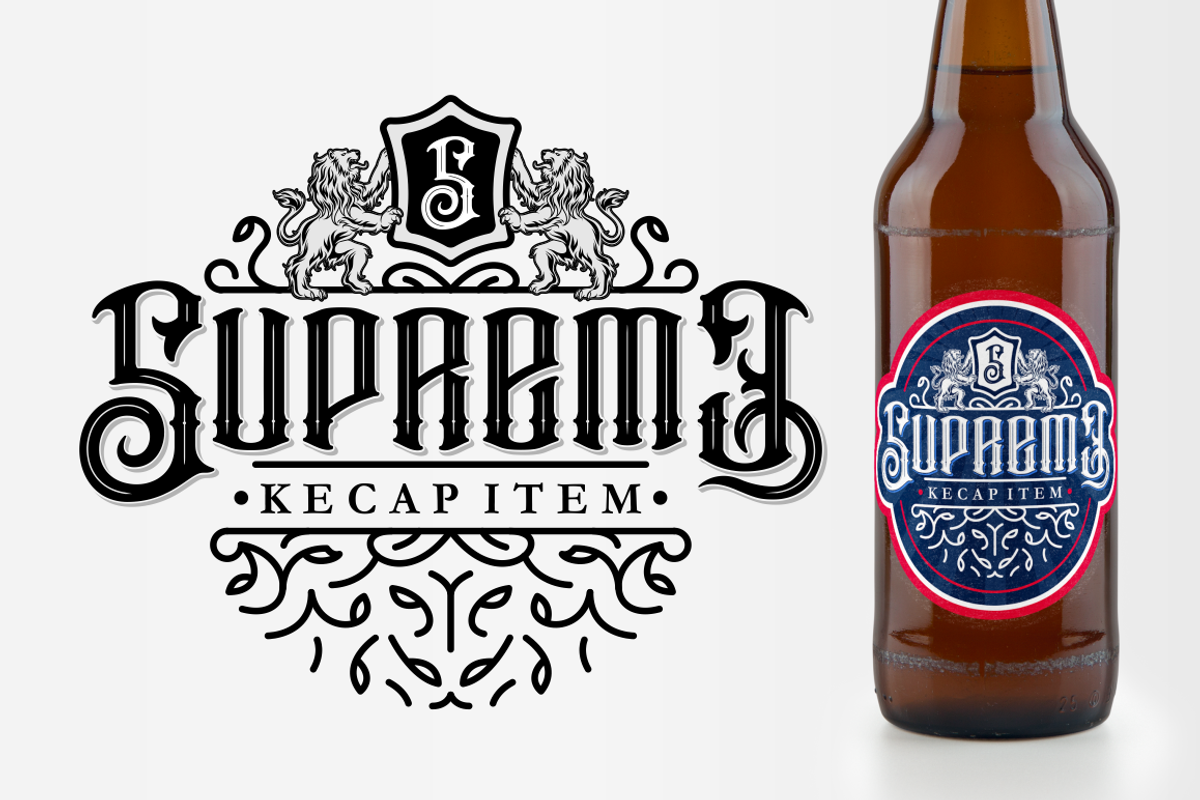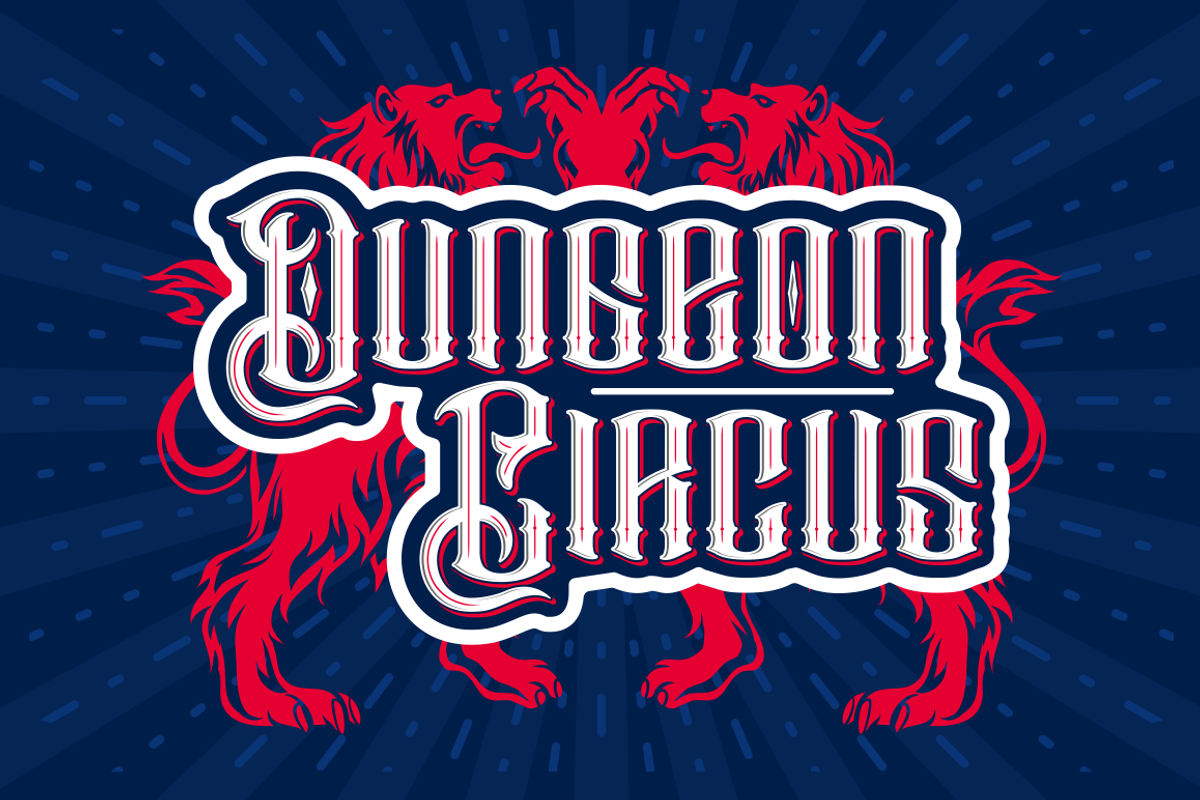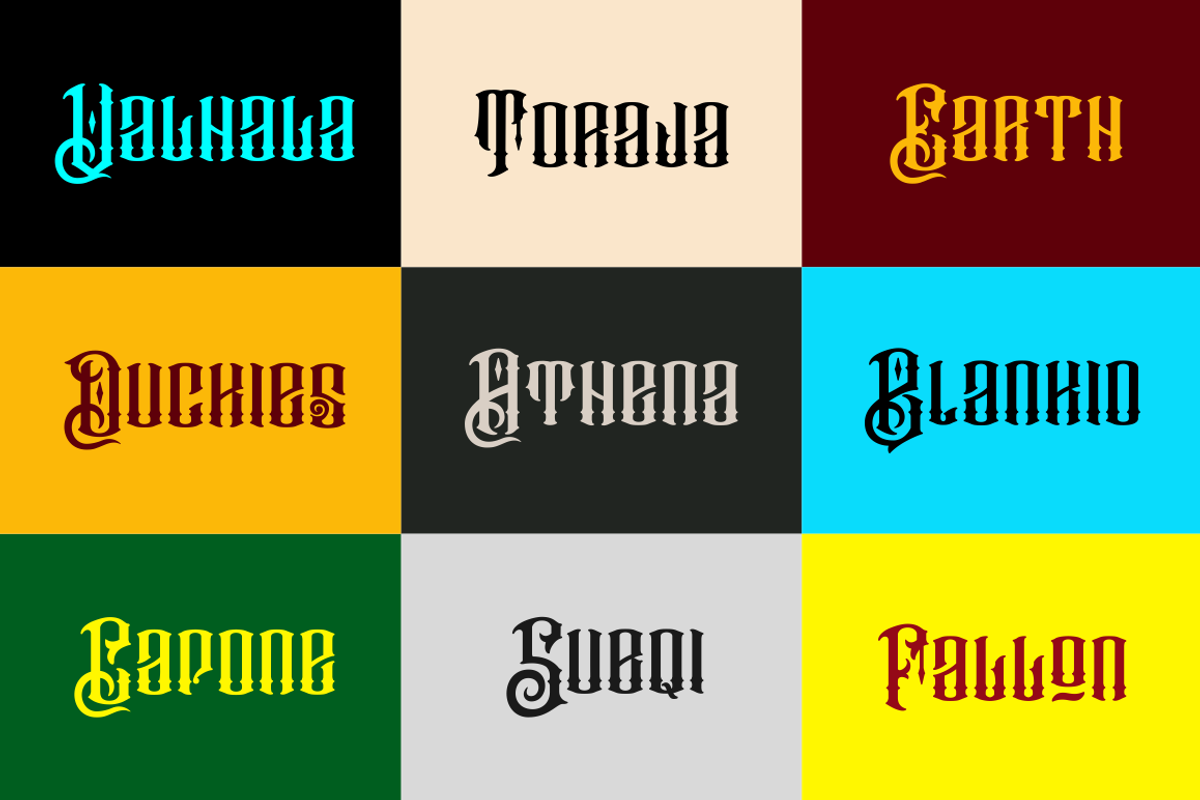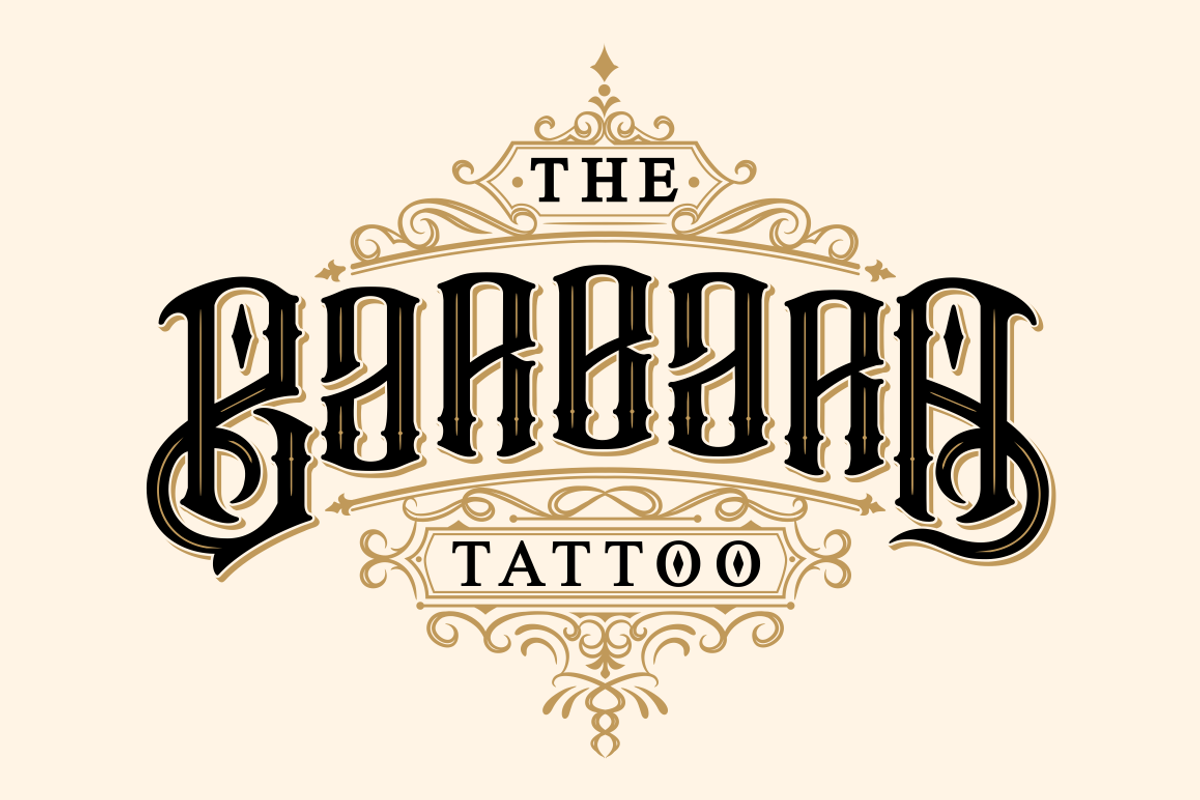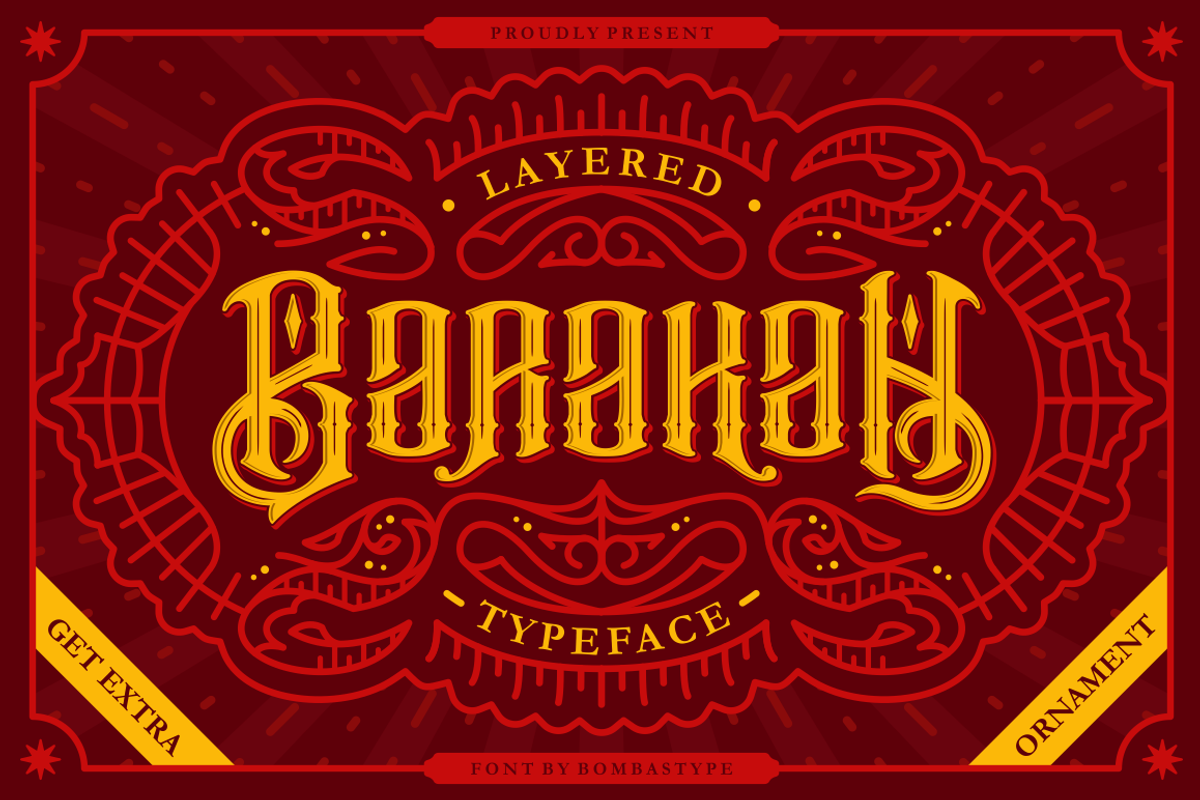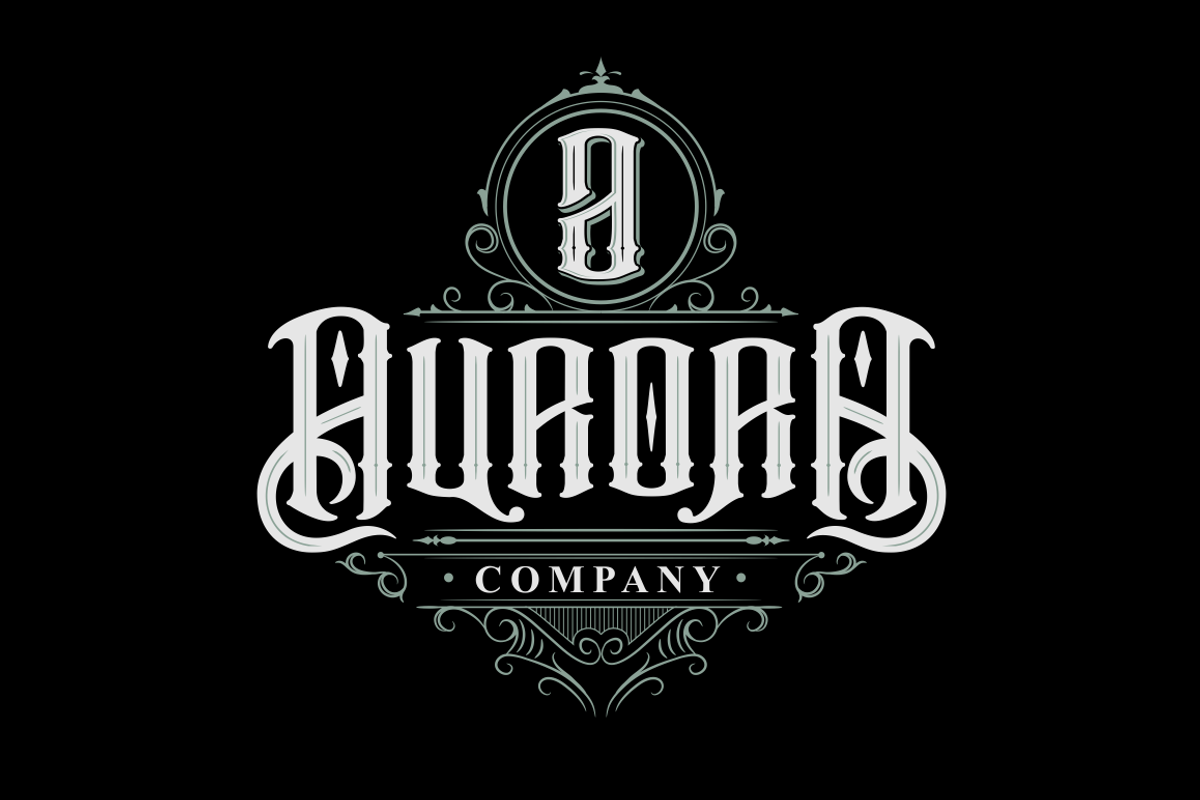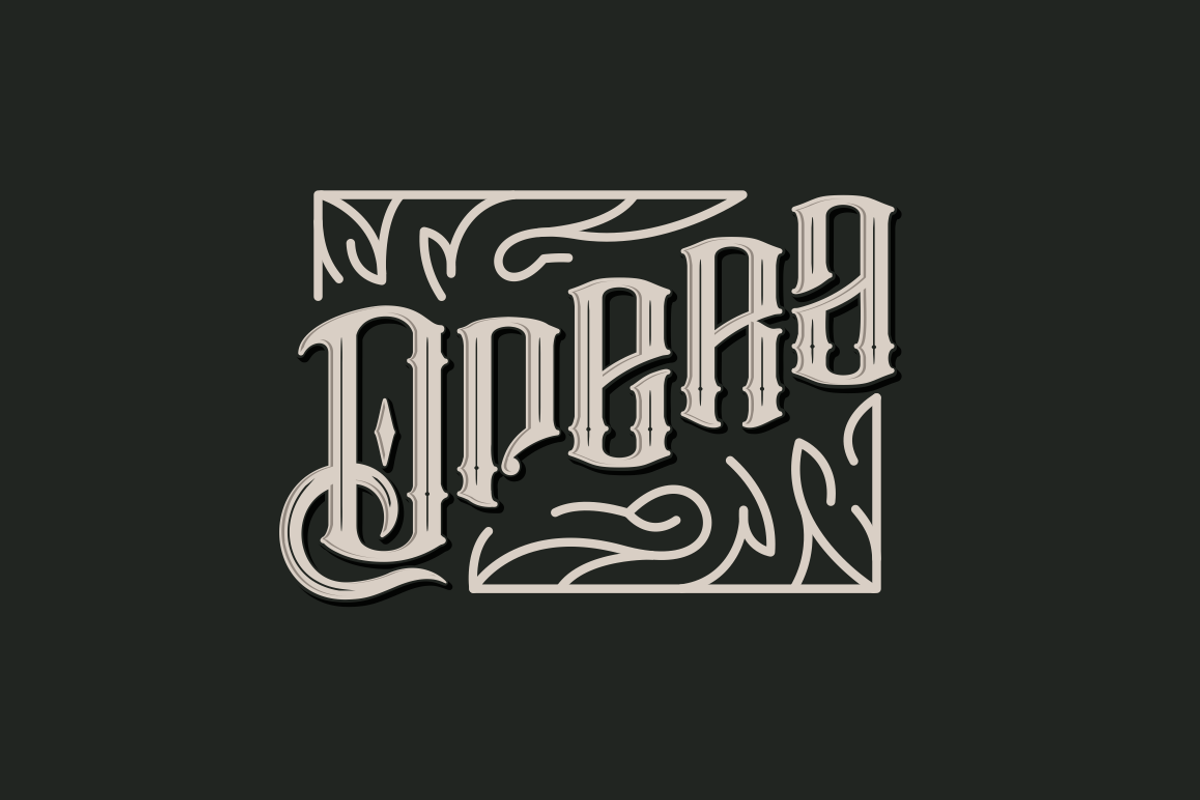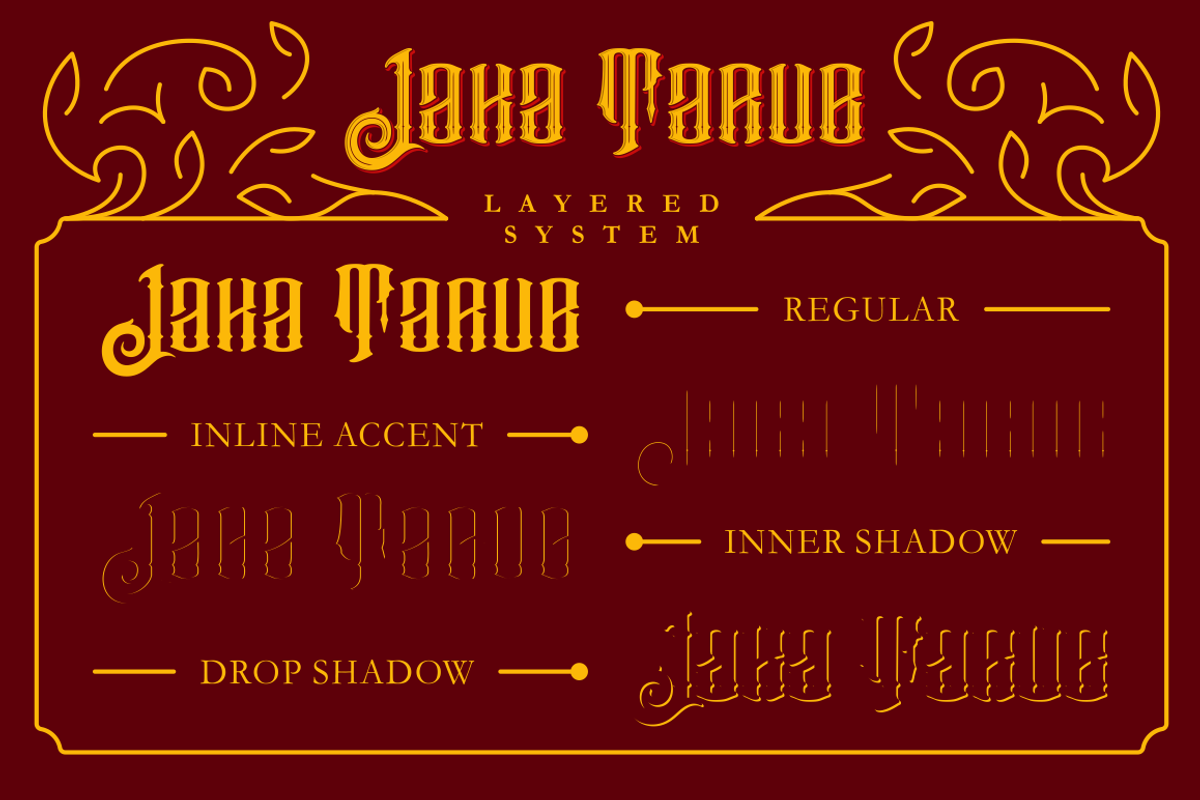
Barakah Layered Typeface + Extras
Barakah Layered Typeface + Extras by Bombastype is a font selected for branding, posters, packaging, typography.
- Barakah Drop Shadow Drop Shadow
- Barakah Regular Regular
- Barakah Inline Inline
- Barakah Inner Shadow Inner Shadow
Why Barakah Layered Typeface + Extras is worth a look
Barakah Layered Typeface + Extras by Bombastype fits naturally into Branding, posters, packaging, typography.